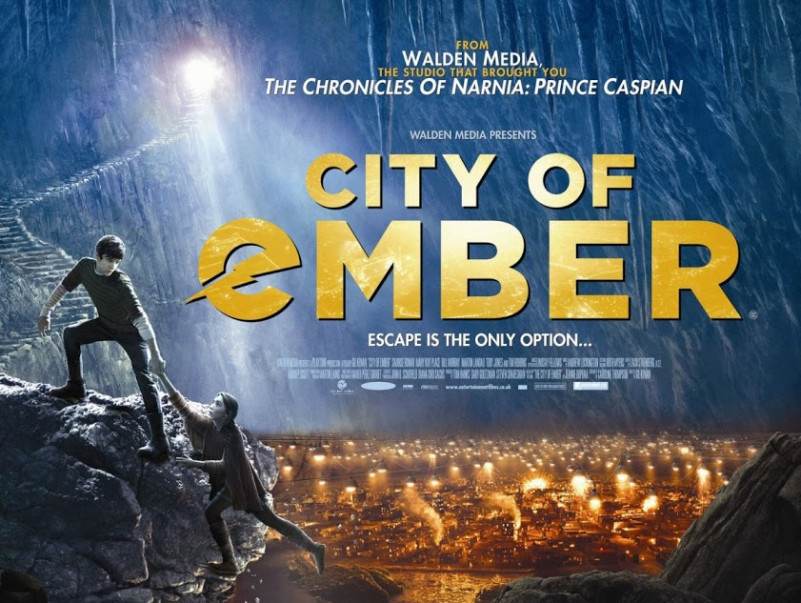
City of Ember Film Font
City of Ember is a 2008 American science fiction adventure film based on the 2003 novel The City of Ember by Jeanne DuPrau. Directed by Gil Kenan, the film stars Saoirse Ronan, Harry Treadaway, Bill Murray, Mackenzie Crook, Martin Landau, Mary Kay Place, Toby Jones and Tim Robbins.
What’s the font used for City of Ember Movie?
The font used for movie is City of Ember Font. Designed by TFonts1. City of Ember sans serif is clean. It’s a very versatile font that works great in large and small sizes.